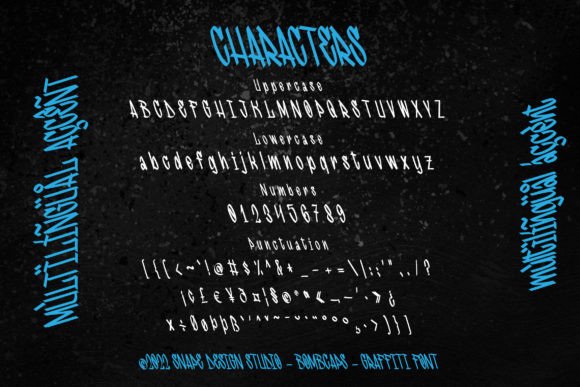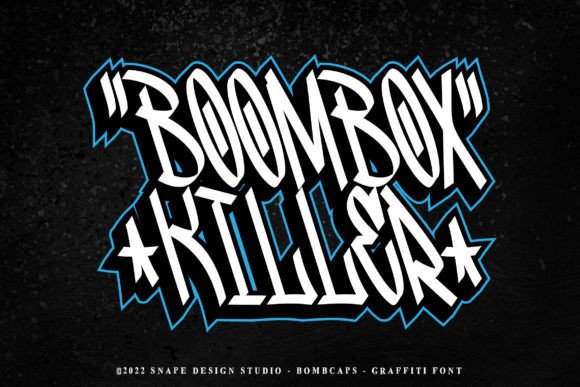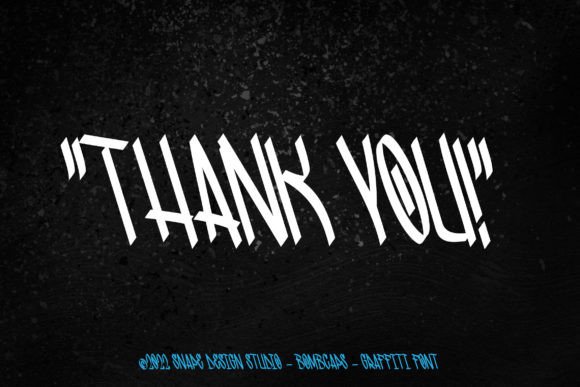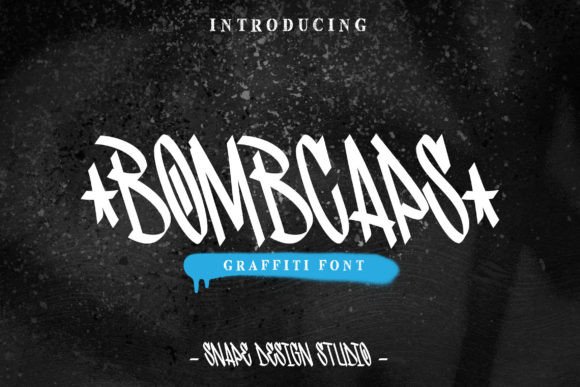
Bombcaps Font: The Ultimate Urban Display Font for Designers and Crafters
In the world of typography, fonts play a crucial role in conveying the tone and personality of a design project. For designers and crafters looking to add an edgy, urban touch to their work, Bombcaps Font is an excellent choice. Inspired by typical street art calligraphy, Bombcaps is a cool and trendy display font that is perfect for making a statement.
What is Bombcaps Font?
Bombcaps Font is a display font that embodies the spirit of street art and graffiti. Its urban, hip, and stylized characters are designed to give your projects an authentic, edgy feel. Whether you’re working on a branding campaign, a packaging design, or a DIY craft project, Bombcaps Font is the perfect choice for adding a touch of urban grit and sophistication.
Key Features of Bombcaps Font
- Urban and Hip Design: Bombcaps Font features a unique, graffiti-style design that is perfect for adding an urban touch to your projects.
- Trendy and Modern: The font’s stylized characters are inspired by the latest street art trends, making it a great choice for designers and crafters who want to stay ahead of the curve.
- Highly Versatile: Bombcaps Font can be used for a wide range of design projects, from branding and packaging to posters and flyers.
- Easily Customizable: The font is highly customizable, allowing you to adjust the size, color, and style to fit your design needs.
Who Can Benefit from Using Bombcaps Font?
Bombcaps Font is a versatile design asset that can benefit a wide range of designers and crafters, including:
- Graphic Designers: Bombcaps Font is perfect for graphic designers who want to add an urban touch to their branding, packaging, and advertising projects.
- Street Artists: Street artists and graffiti enthusiasts can use Bombcaps Font to create authentic, edgy designs that reflect their artistic style.
- Crafters and DIY Enthusiasts: Crafters and DIY enthusiasts can use Bombcaps Font to add a touch of urban sophistication to their handmade projects, such as journals, scrapbooks, and crafts.
Bombcaps Font is a cool and trendy display font that is perfect for designers and crafters who want to add an urban touch to their projects. With its unique, graffiti-style design and highly versatile features, Bombcaps Font is an excellent choice for a wide range of design projects. Whether you’re a graphic designer, street artist, or crafter, Bombcaps Font is a great addition to your design toolkit.